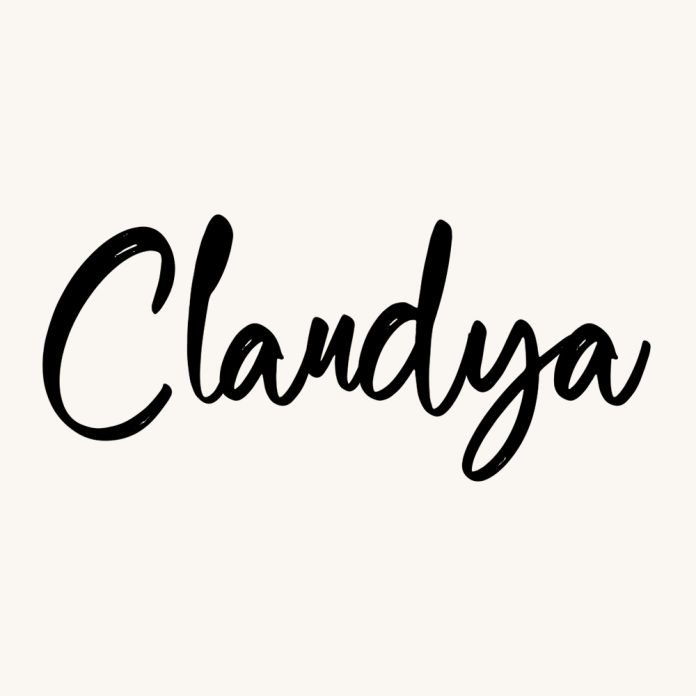
Claudya is a lovely and delicate script font that exudes elegance and class. This font is PUA encoded which means you can access all of the glyphs and swashes with ease!